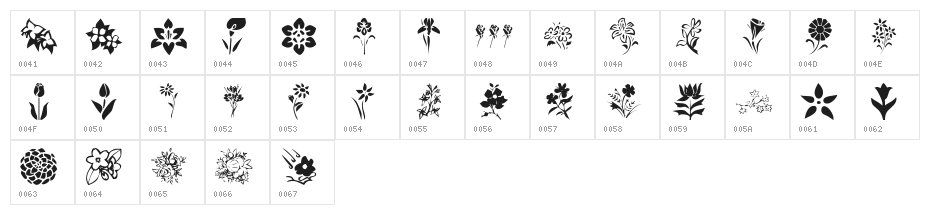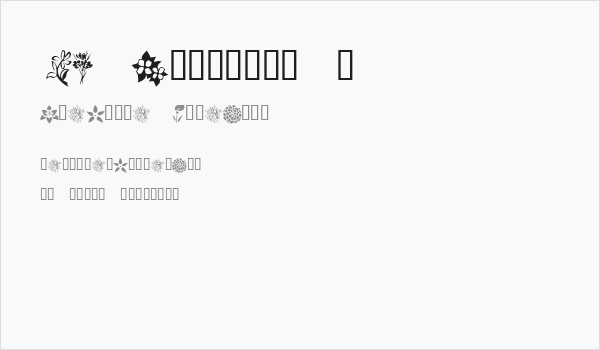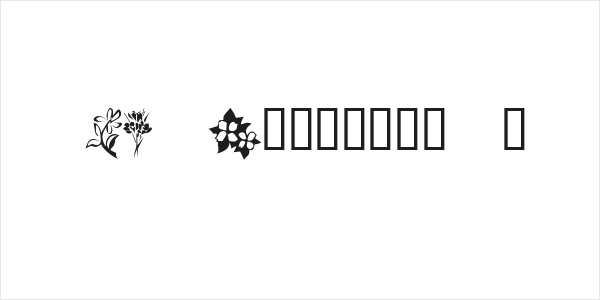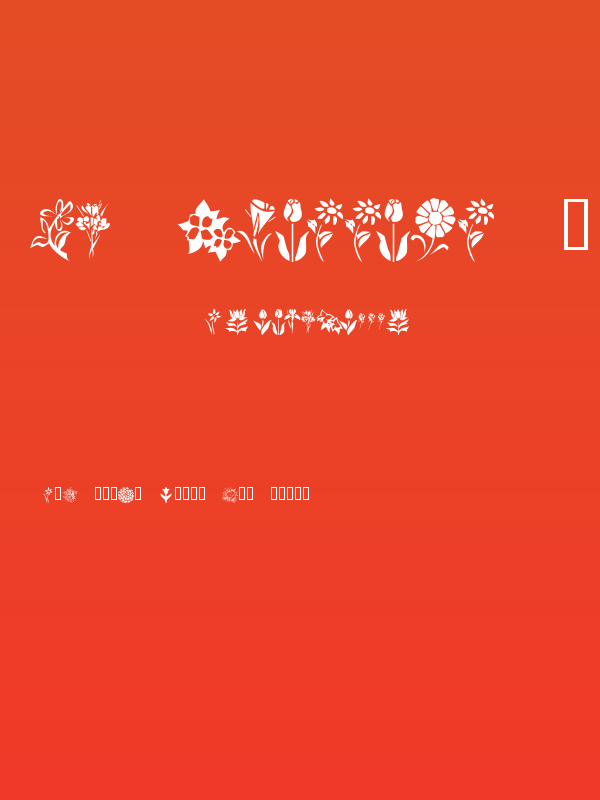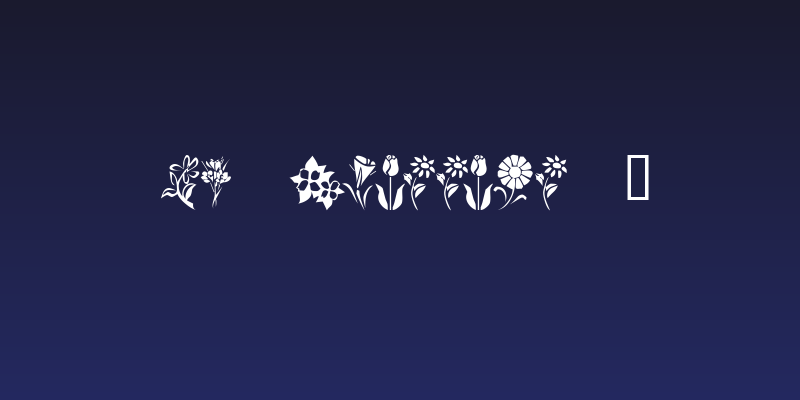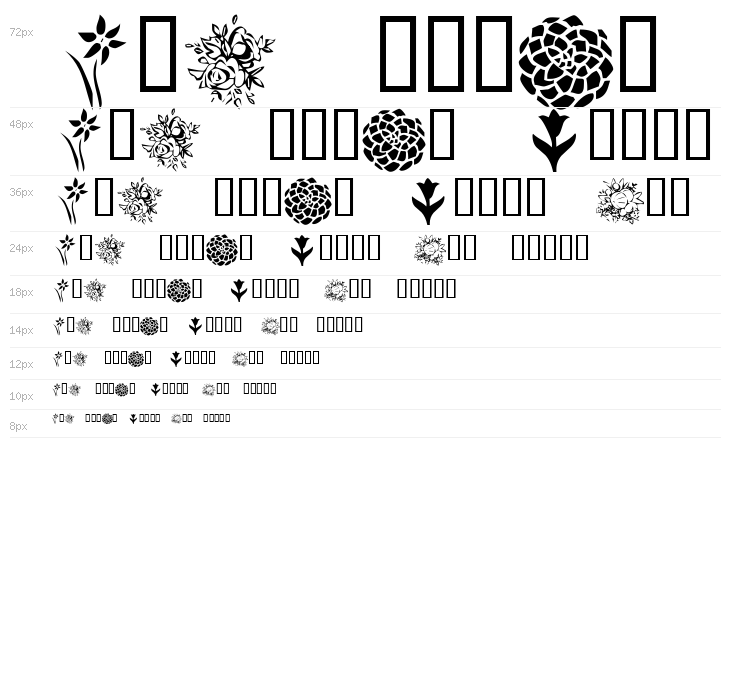
KR Blossoms 1 Font
KR Blossoms 1 Description
A decorative collection of floral and botanical dingbats, featuring a variety of stylized flowers, leaves, and plant motifs in bold black silhouettes and intricate linework.
Overall StyleDecorative, Playful, Botanical
Use CaseOrnamental accents, embellishments, and design elements.
Proposed ProjectsInvitations, greeting cards, scrapbooking, decorative borders, digital stickers, and craft projects.